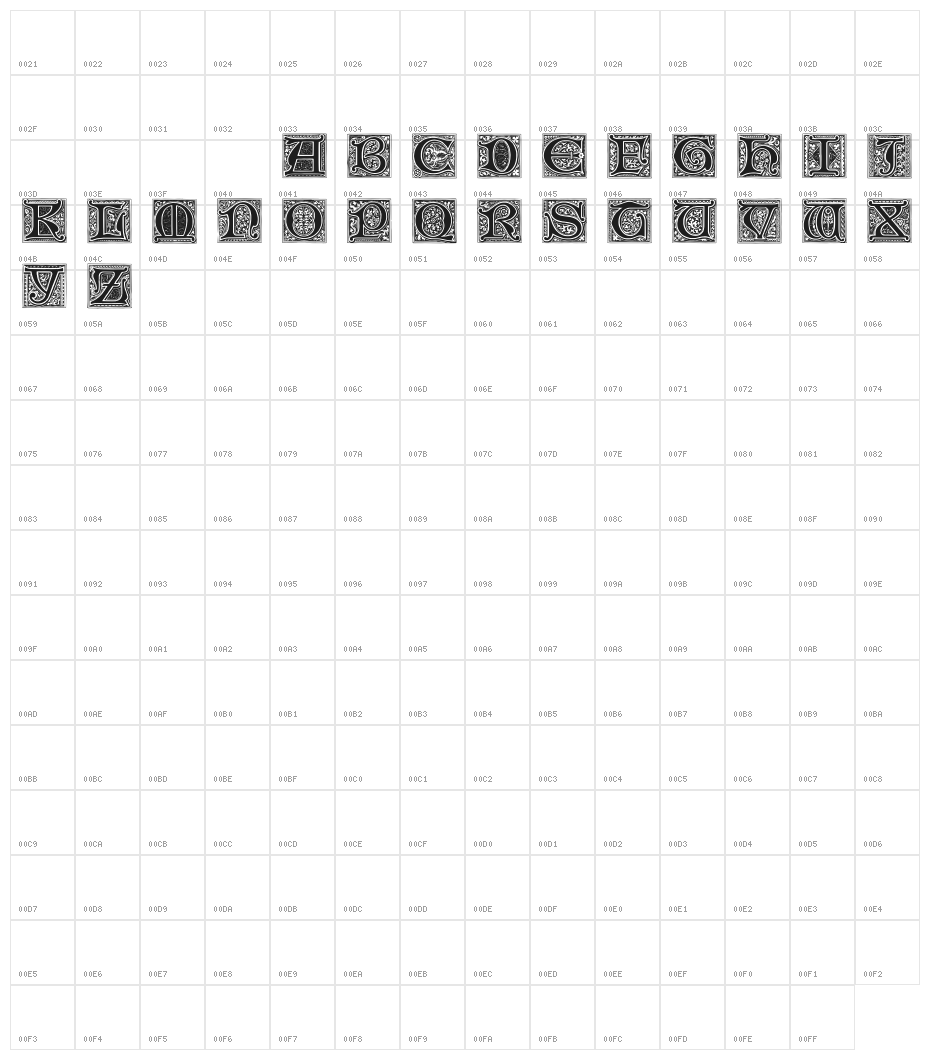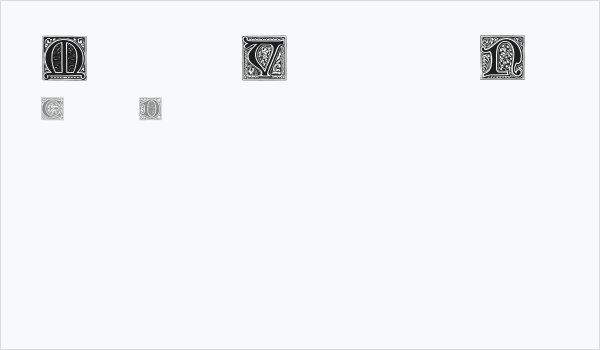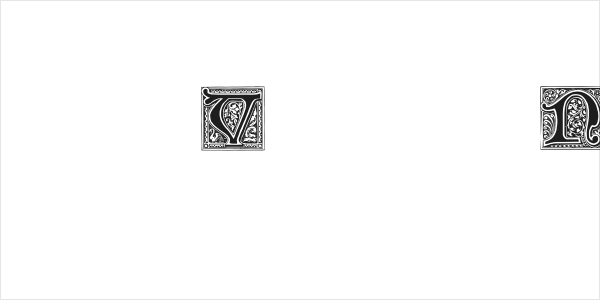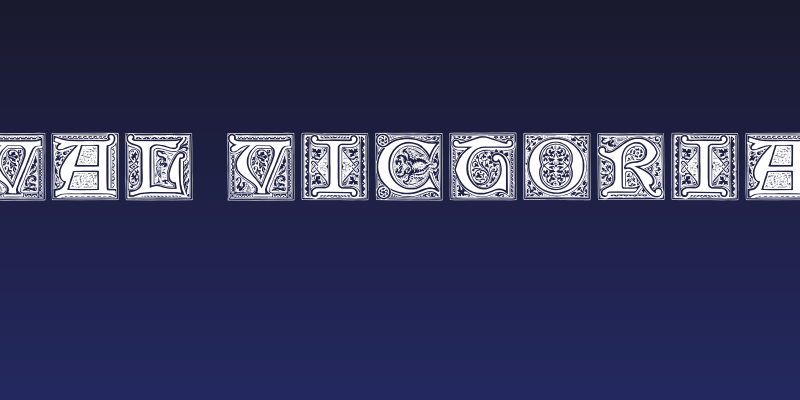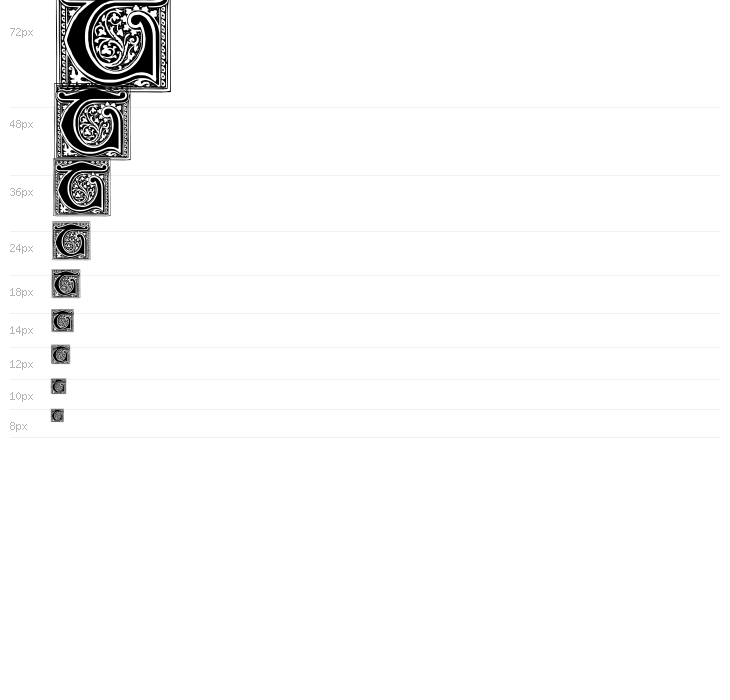
Medieval Victoriana No.2 Font
Medieval Victoriana No.2 Description
This font exudes a rich, ornate style reminiscent of medieval manuscripts and Victorian-era design. Each letter is intricately decorated with elaborate patterns and flourishes, enclosed within a square frame that enhances its decorative appeal. The design is highly detailed, featuring swirling motifs and embellishments that give it a luxurious and historical feel. The font's aesthetic is both bold and elegant, capturing the essence of a bygone era with its intricate artistry. It is ideal for projects that require a touch of vintage sophistication and a sense of grandeur.
| Proposed Projects | Ideal for historical-themed designs, book covers, invitations, and branding that requires a vintage or luxurious touch. |